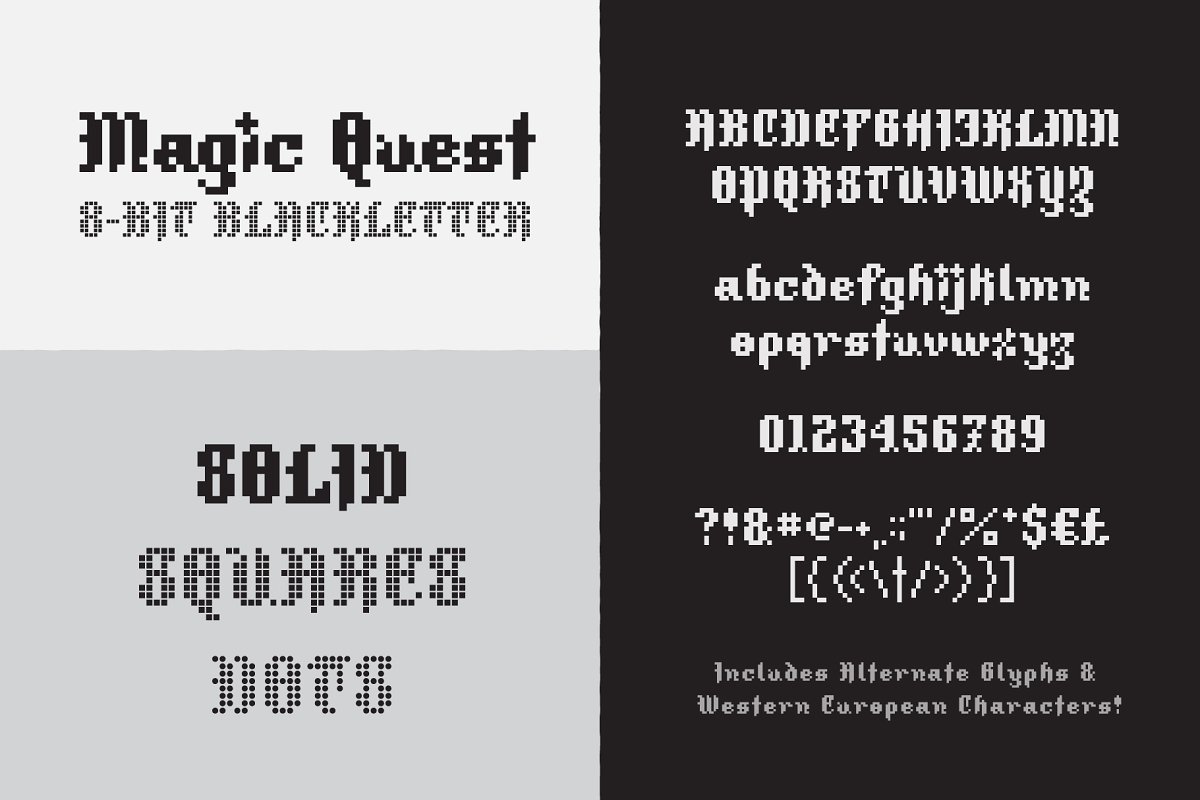
The Essential Blackletter Collection6 Carefully Crafted Blackletter Families, 36 Fonts in Total (OTF + SVG), 80% OFF!WHAT YOU GET The Essential Blackletter Collection (OTF, SVG – 36 files) Includes: Kaiser – Vintage Blackletter, 7 styles; Vanity – Fraktur Blackletter, 8 styles; Pariah Minimal Heavy Blackletter, 6 styles; Krautrock – Isometric Blackletter, 6 styles (Exclusive to this collection); Magic Quest – 8-Bit Blackletter, 3 styles; OCD-Gothic – Gothic Blackletter, 6 styles (Exclusive to this collection)